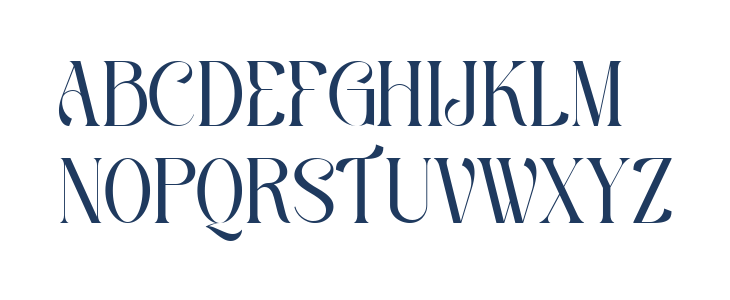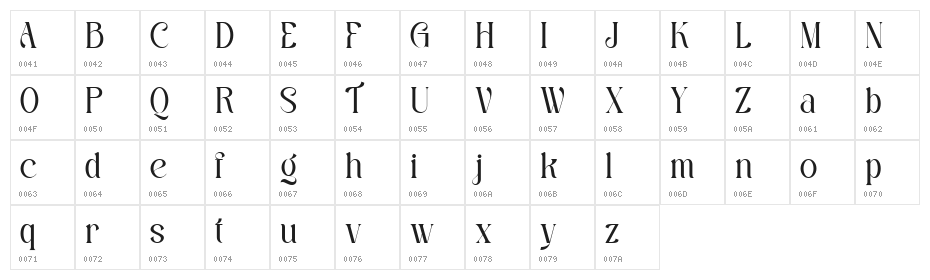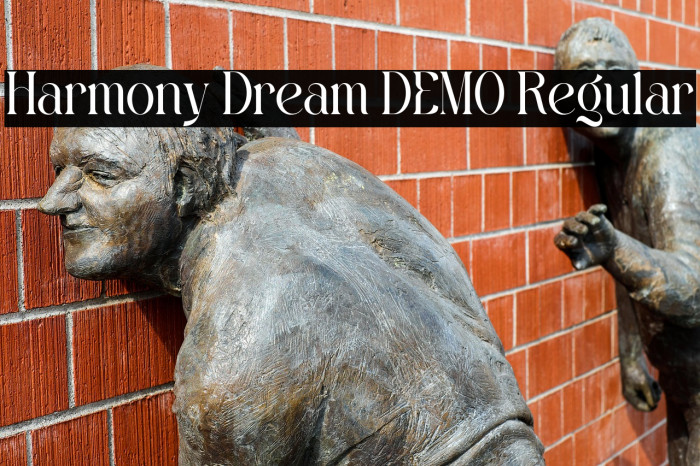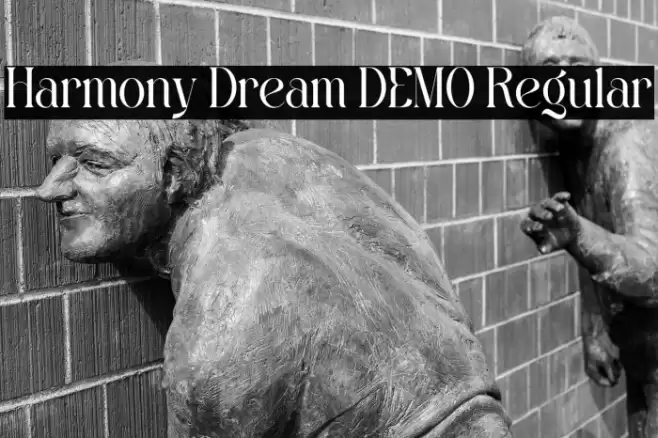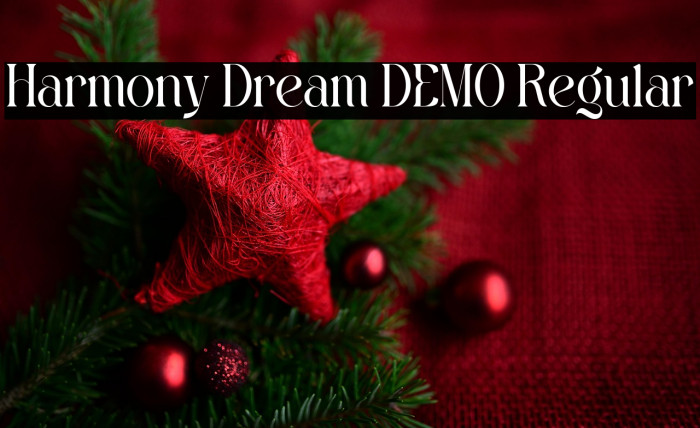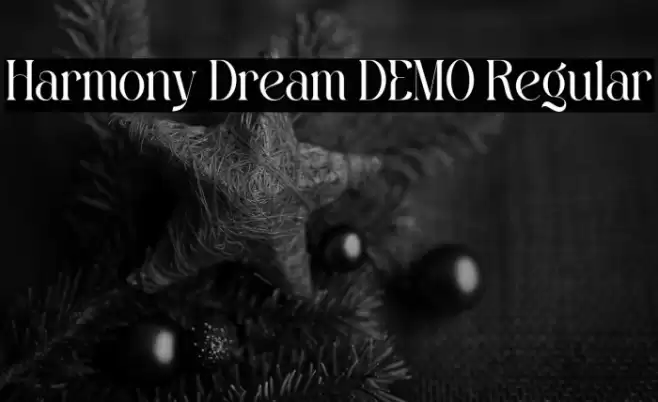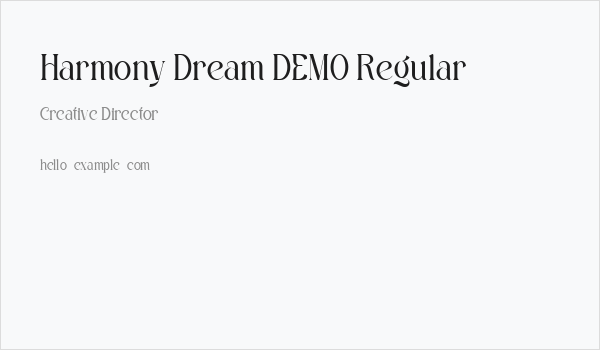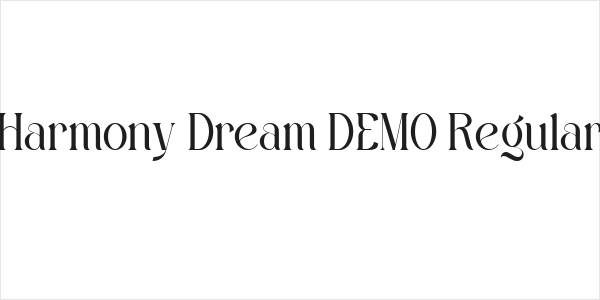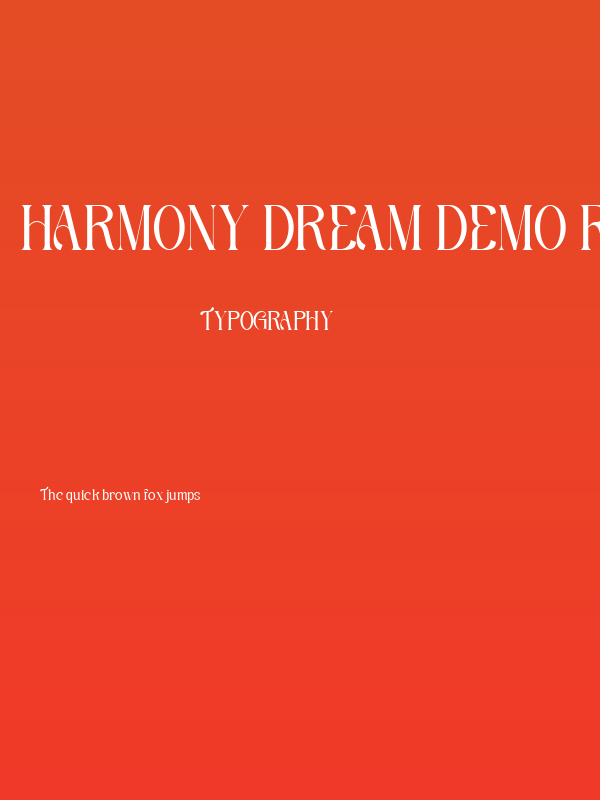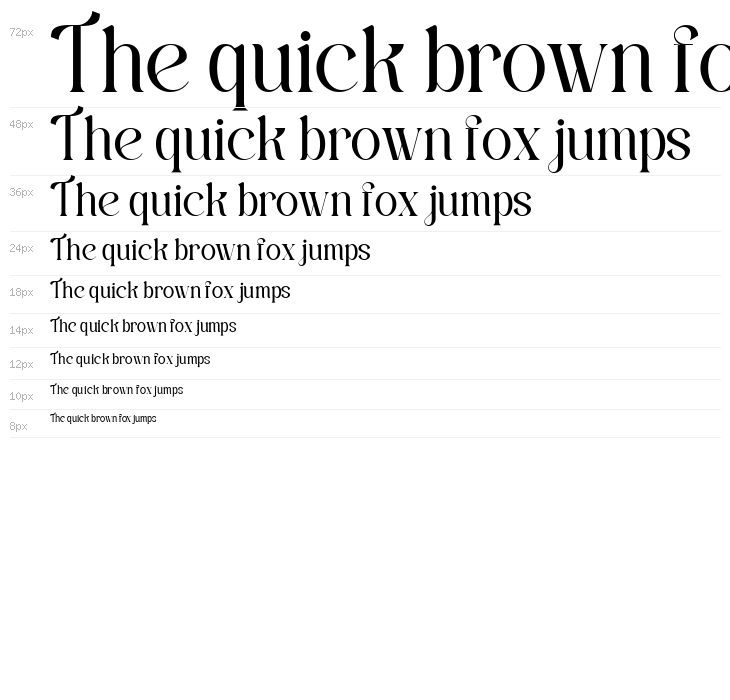
Harmony Dream DEMO Regular Font
Harmony Dream DEMO Regular Description
Elegant serif font with high contrast and refined details, featuring both uppercase and lowercase letters with a sophisticated style.
Harmony Dream DEMO
| Overall Style | Elegant, Classic |
| Use Case | Headlines, Body text, Logos, Invitations |